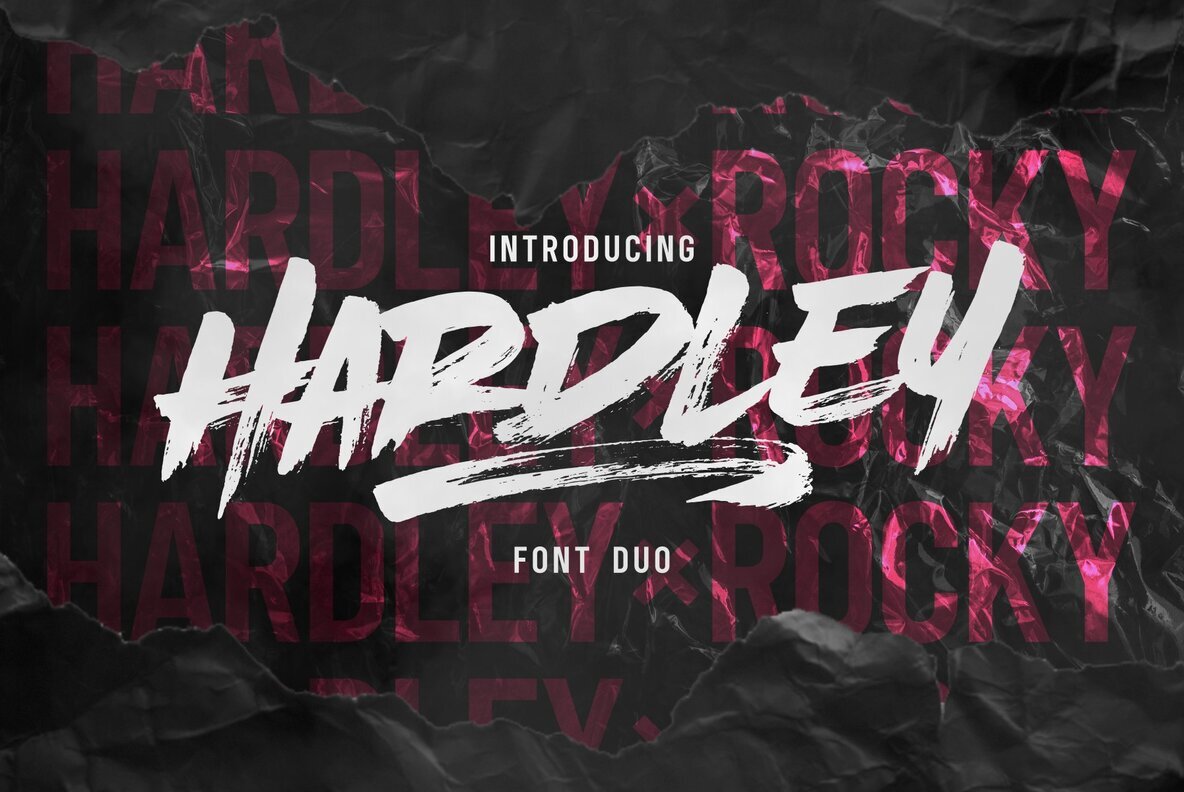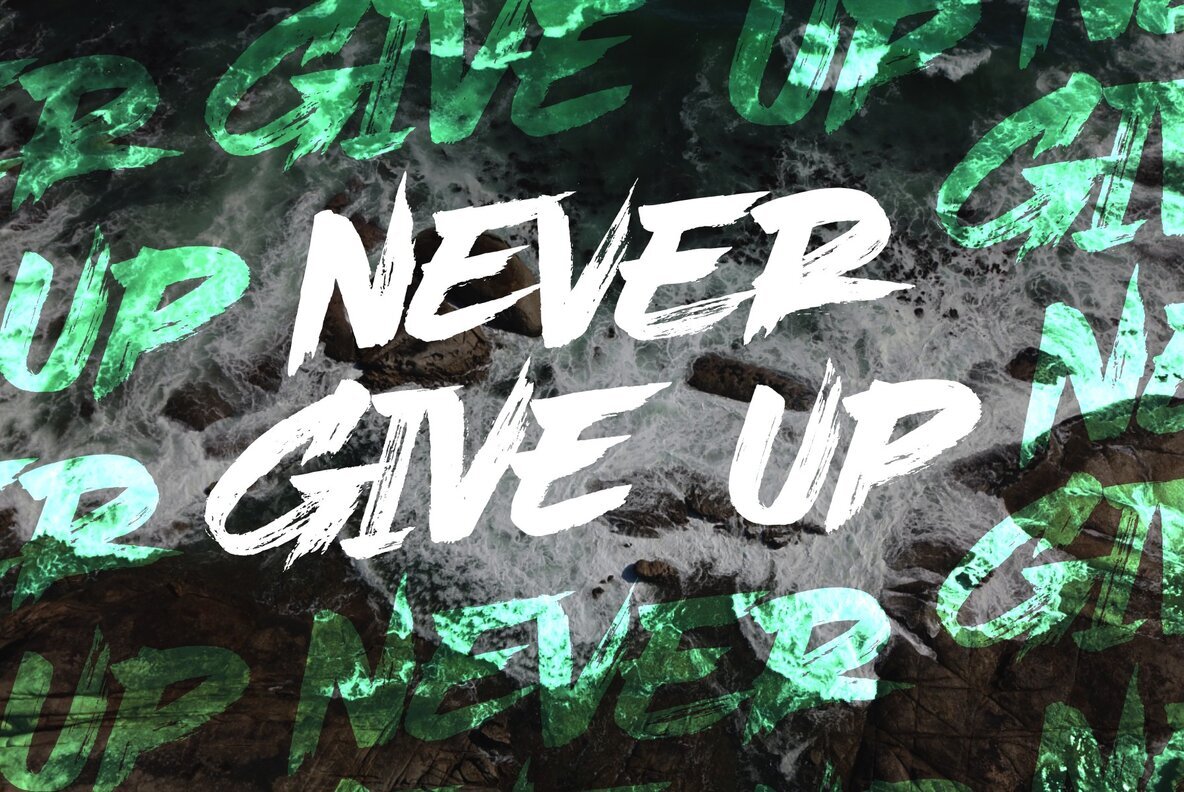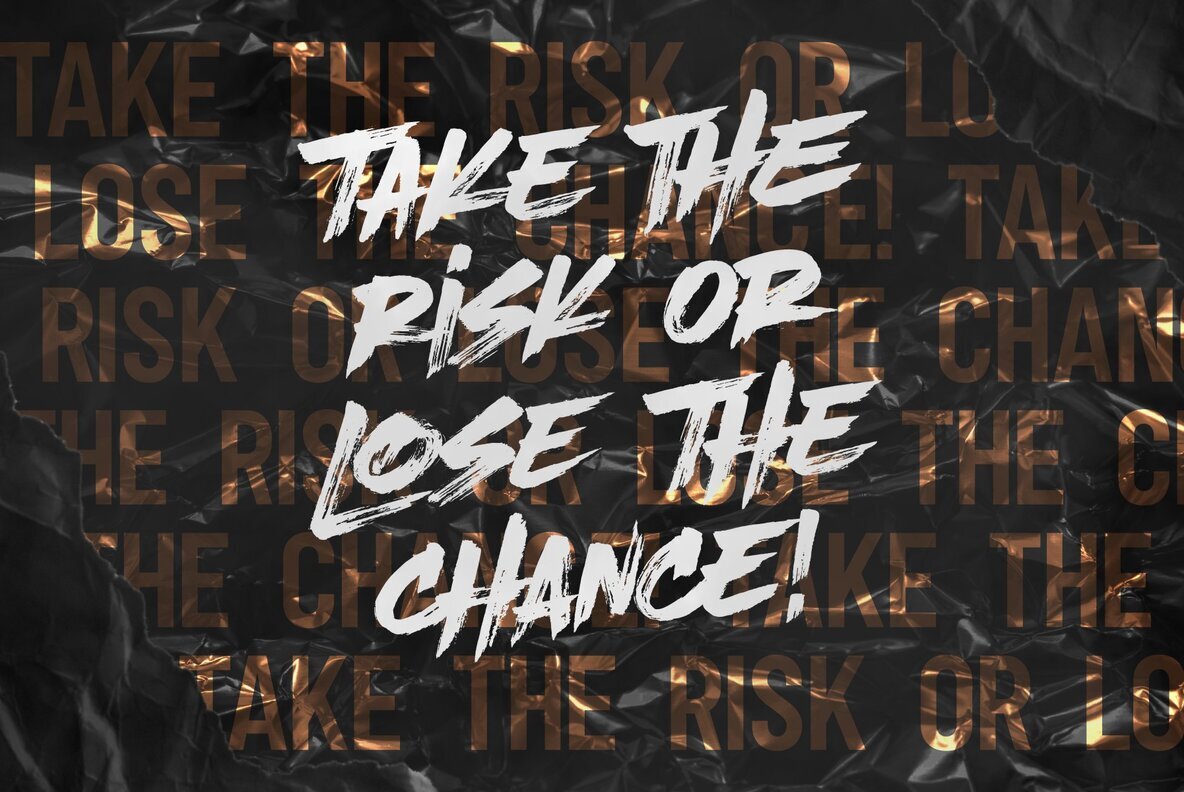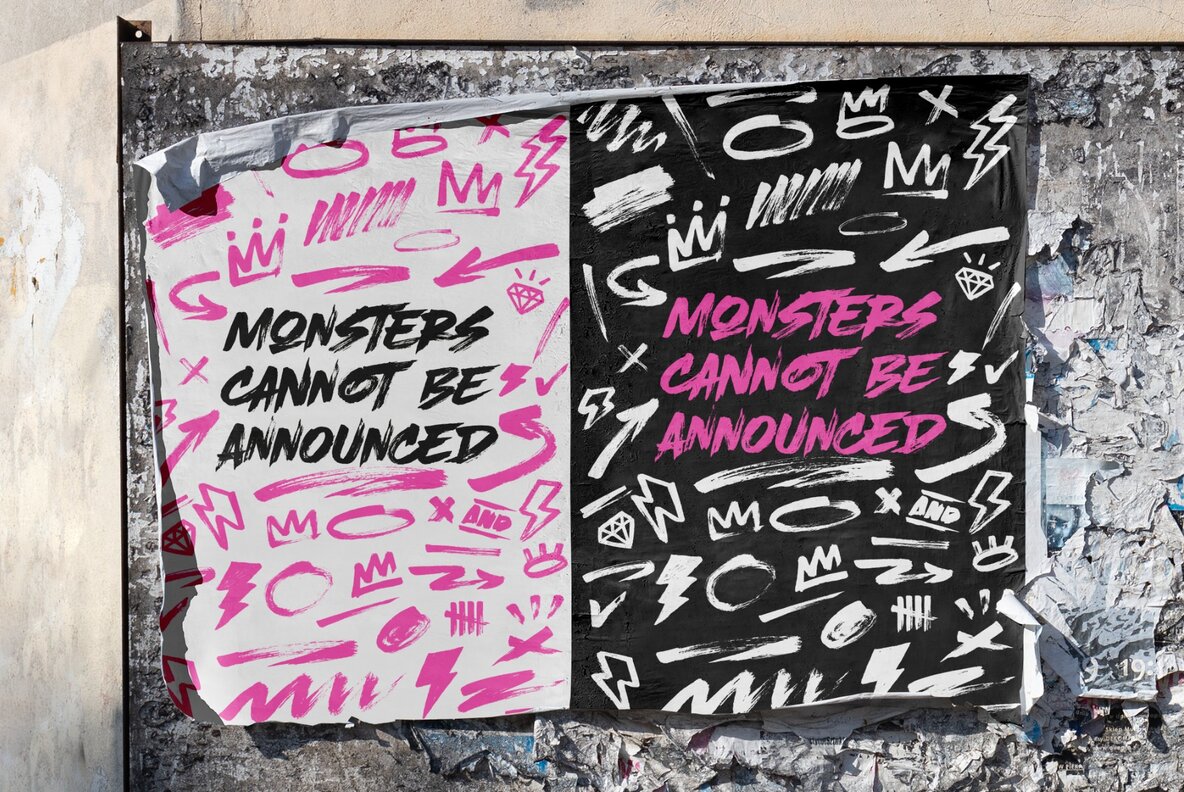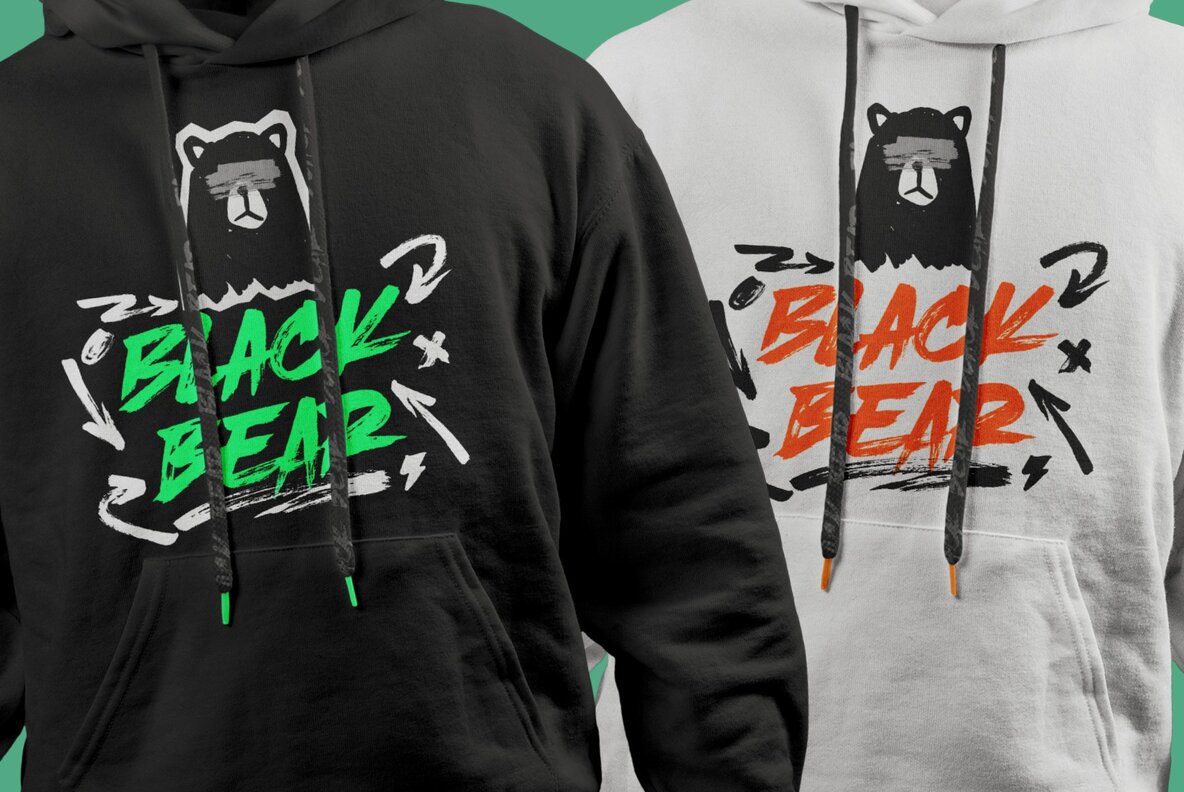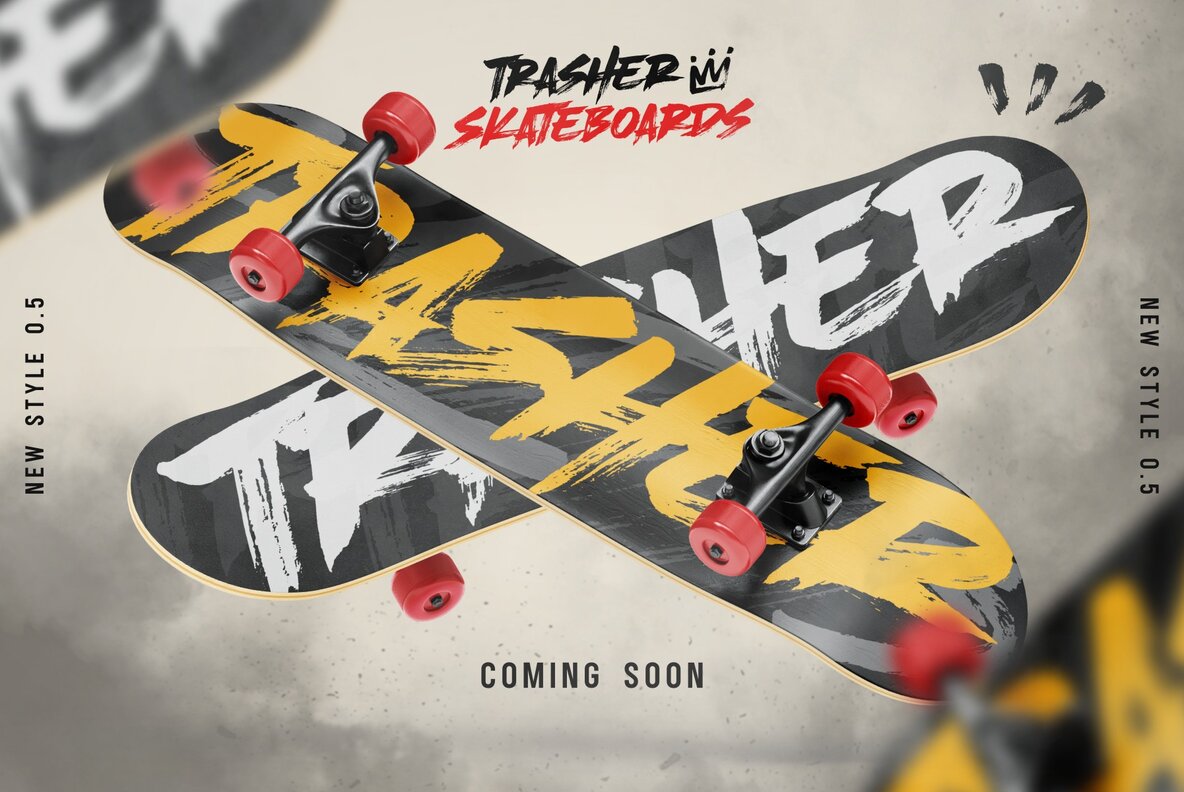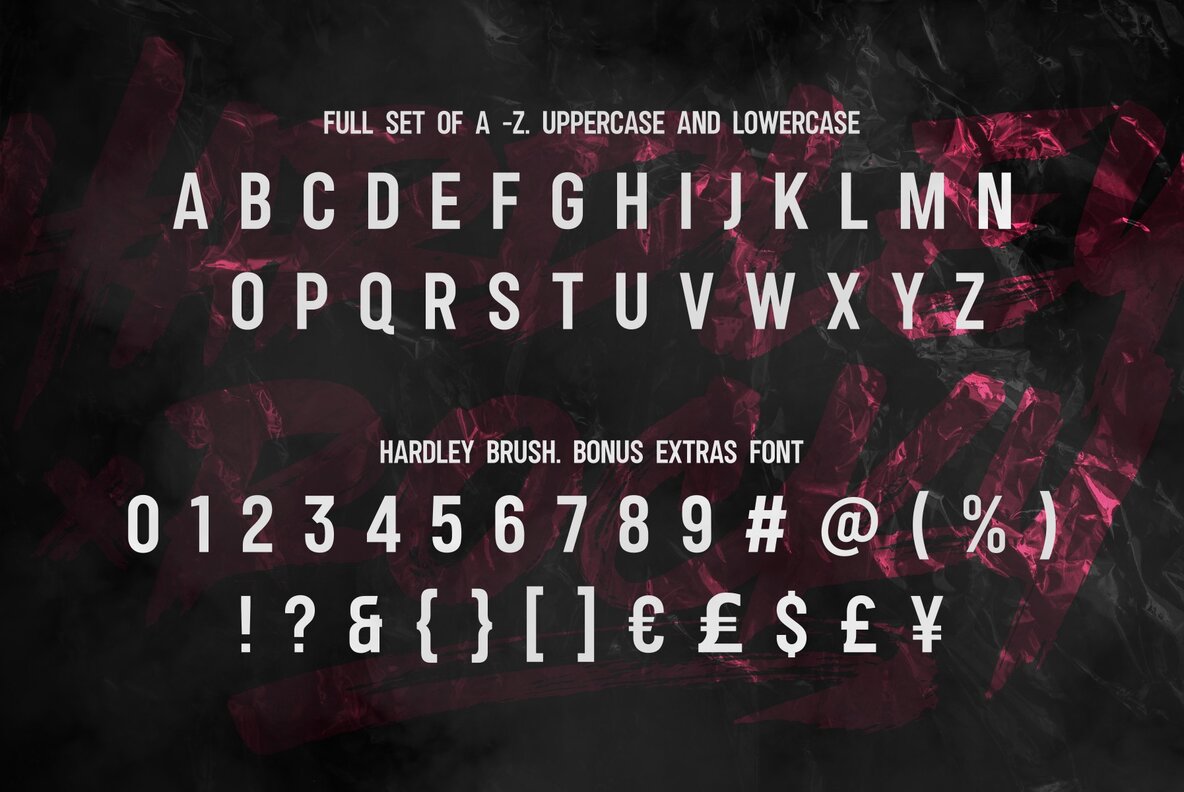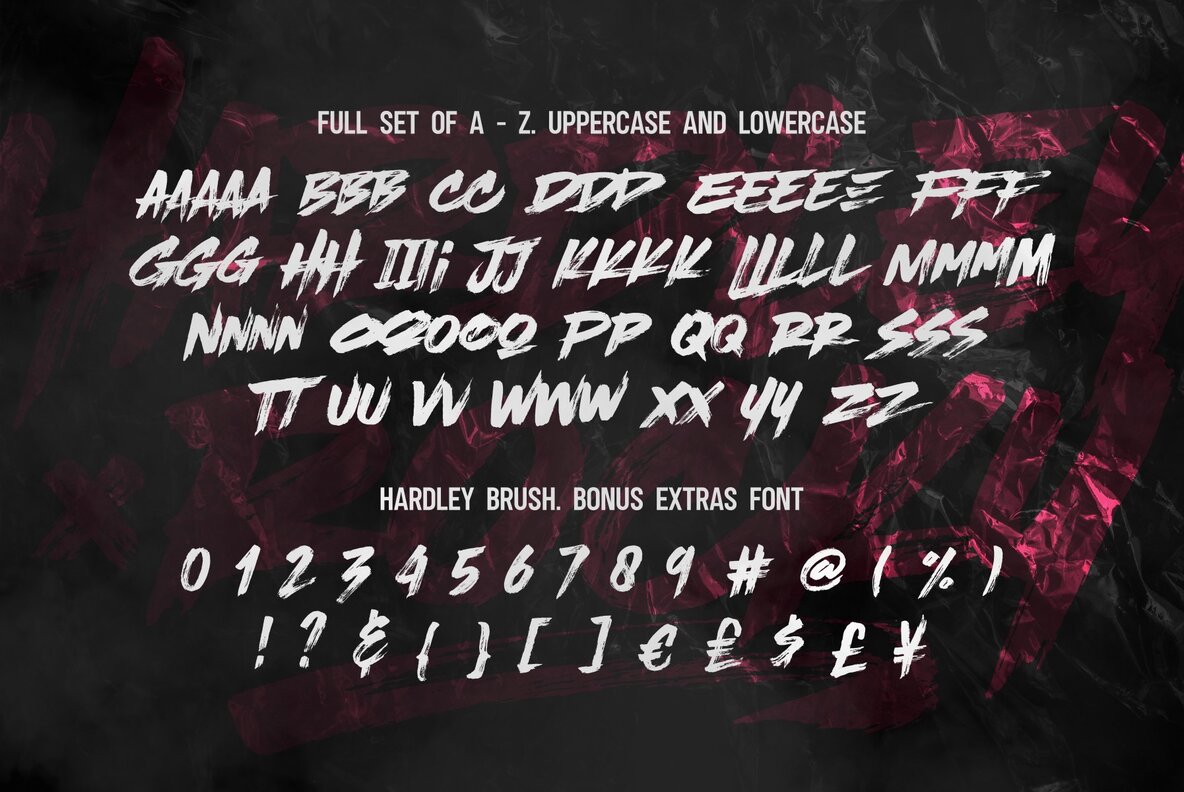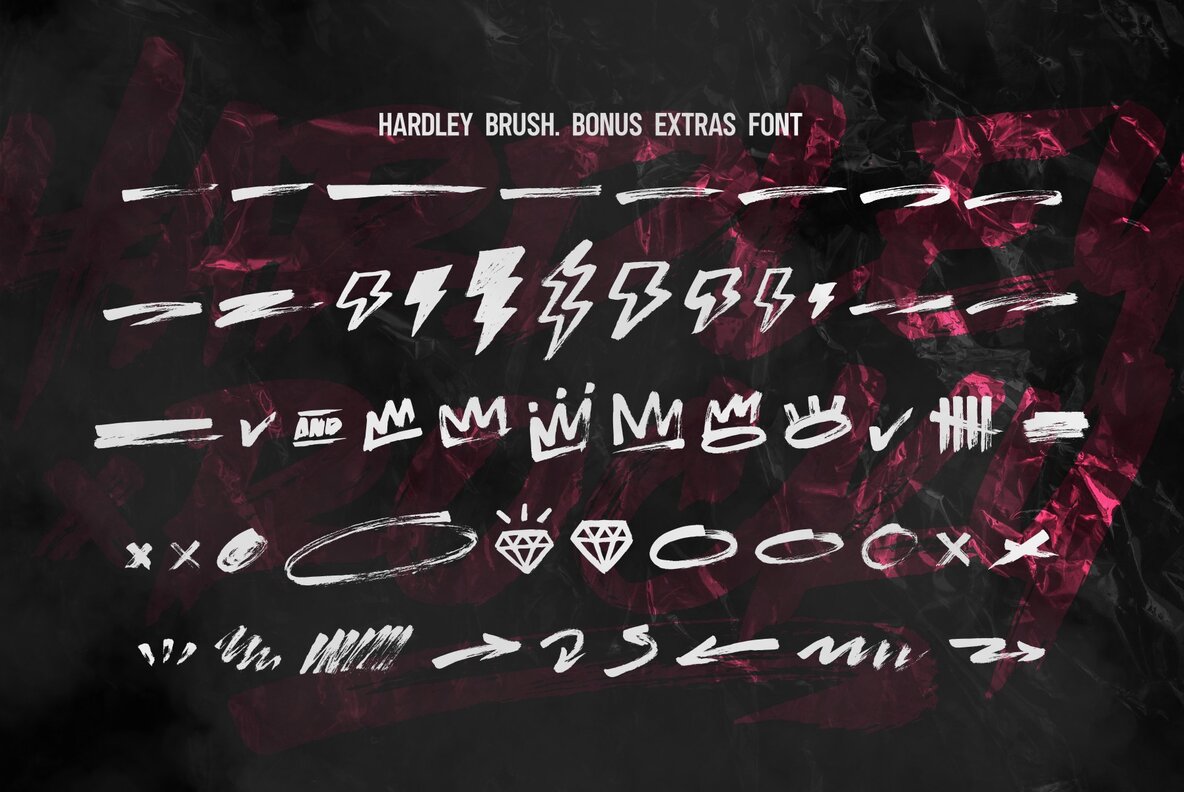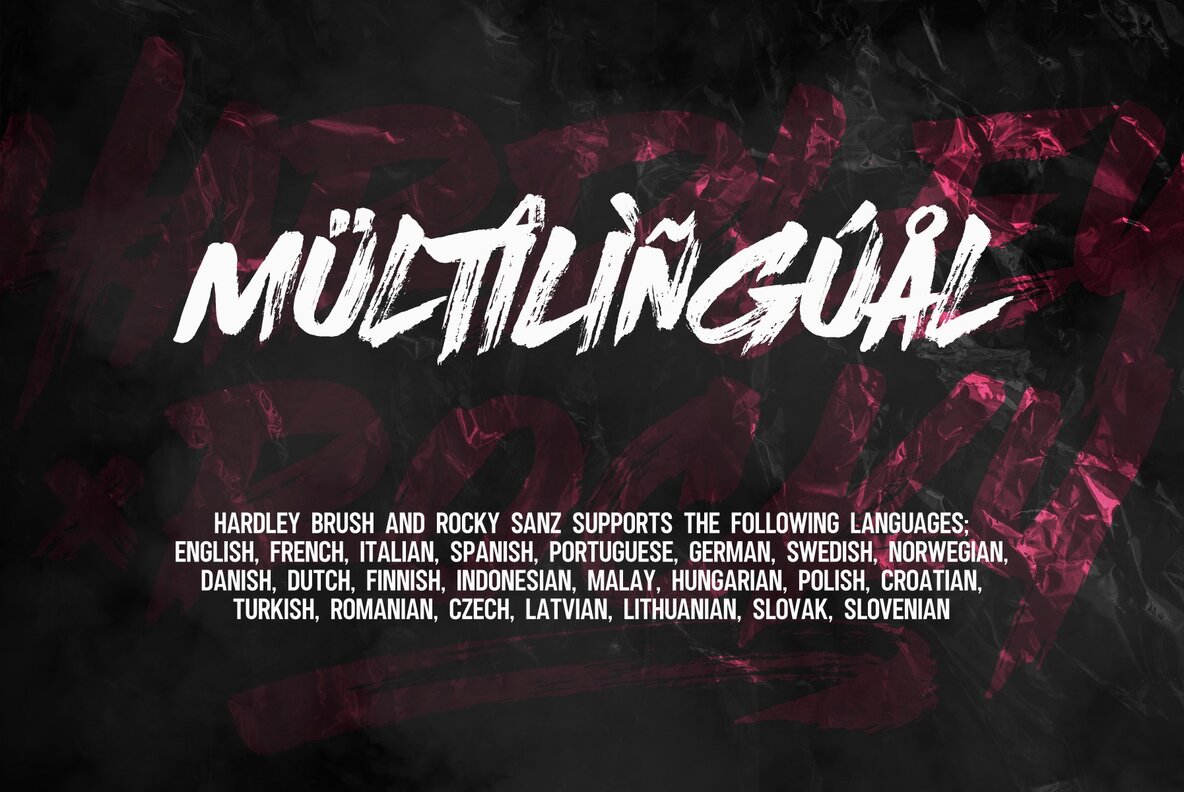
Hardley x Rocky Font
HARDLEY BRUSH
HARDLEY SWASH
ROCKY SANZ
Discover the Hardley x Rocky Font Duo, a captivating blend that brings together a modern brush style with a sleek sans serif. This dynamic duo is perfect for adding a modern and authentic touch to your projects. Ideal for labels, quotes, posters, and more, it's the go-to choice for branding, packaging, and creative works that require a touch of cool sophistication. The textured, natural look of Hardley adds an authentic feel, complementing the clean lines of Rocky Sanz. The Hardley Brush x Rocky Sanz duo supports a wide range of languages including English, French, Spanish, and more, ensuring versatility for international projects. Please note that any preview images are solely for demonstration purposes and are not included with the font.Hardley x Rocky Font Duo